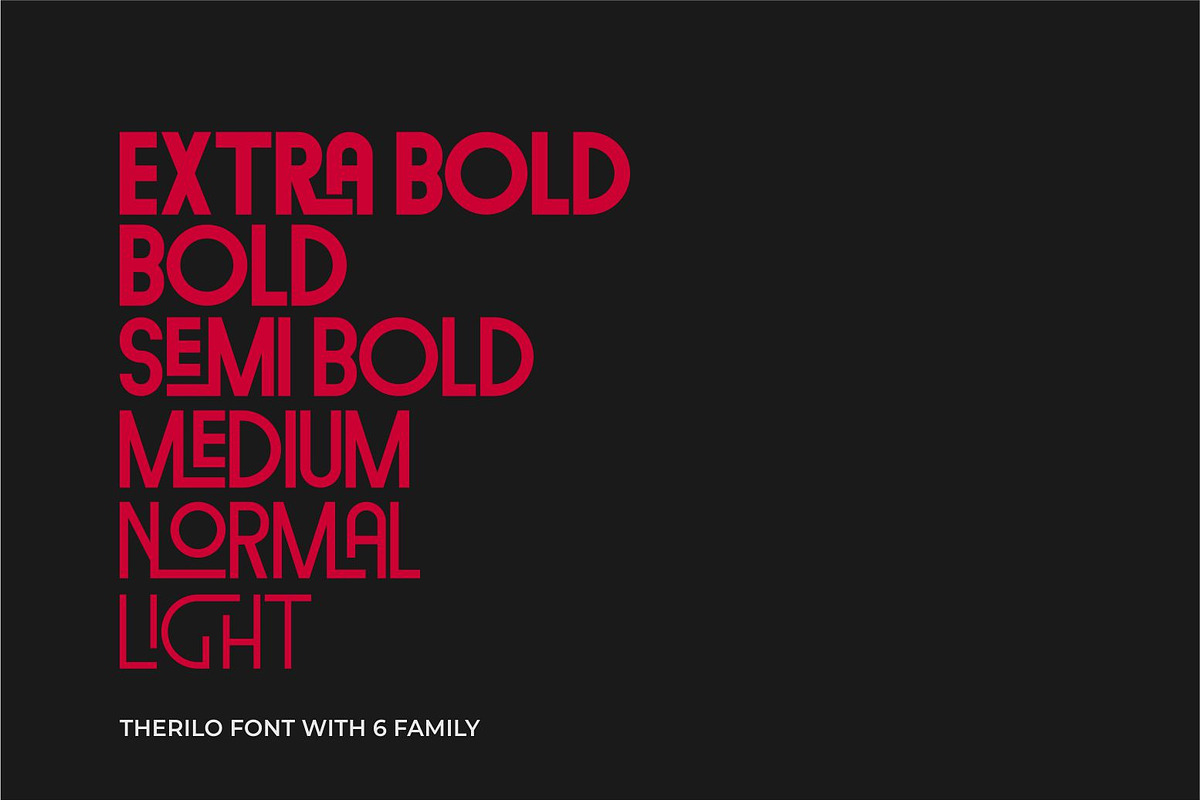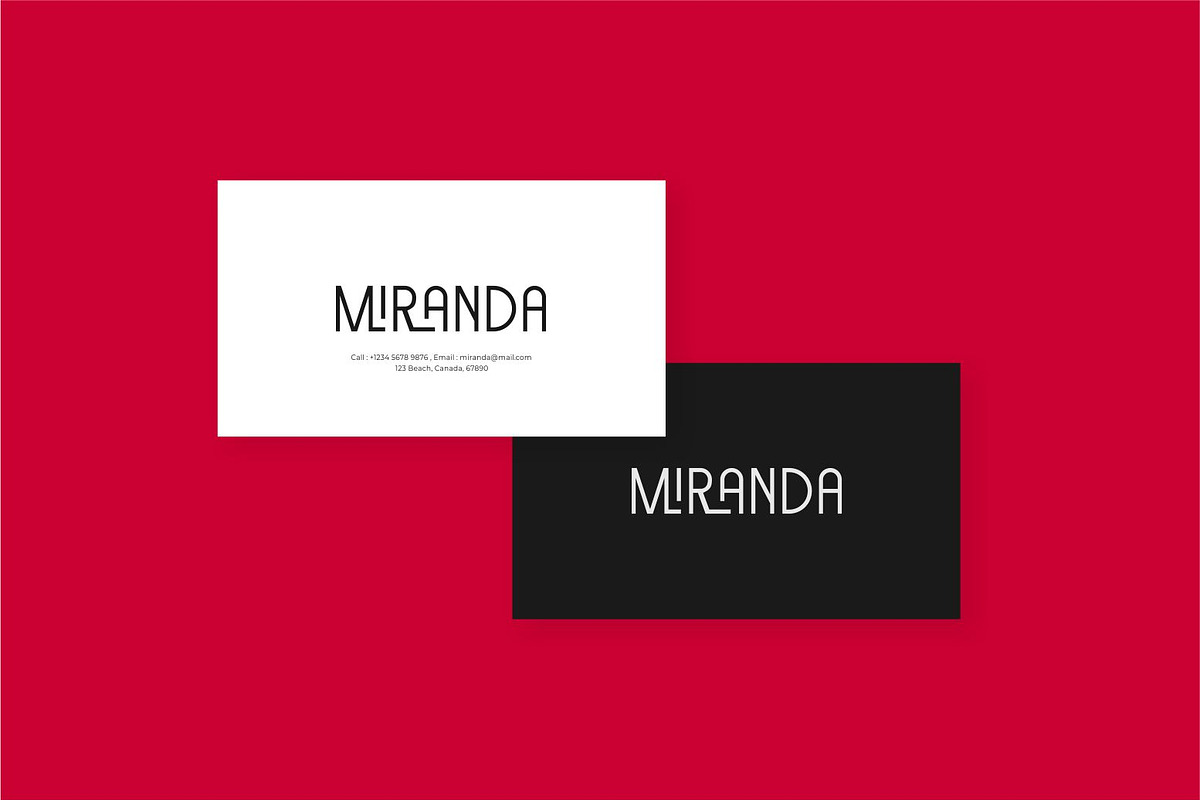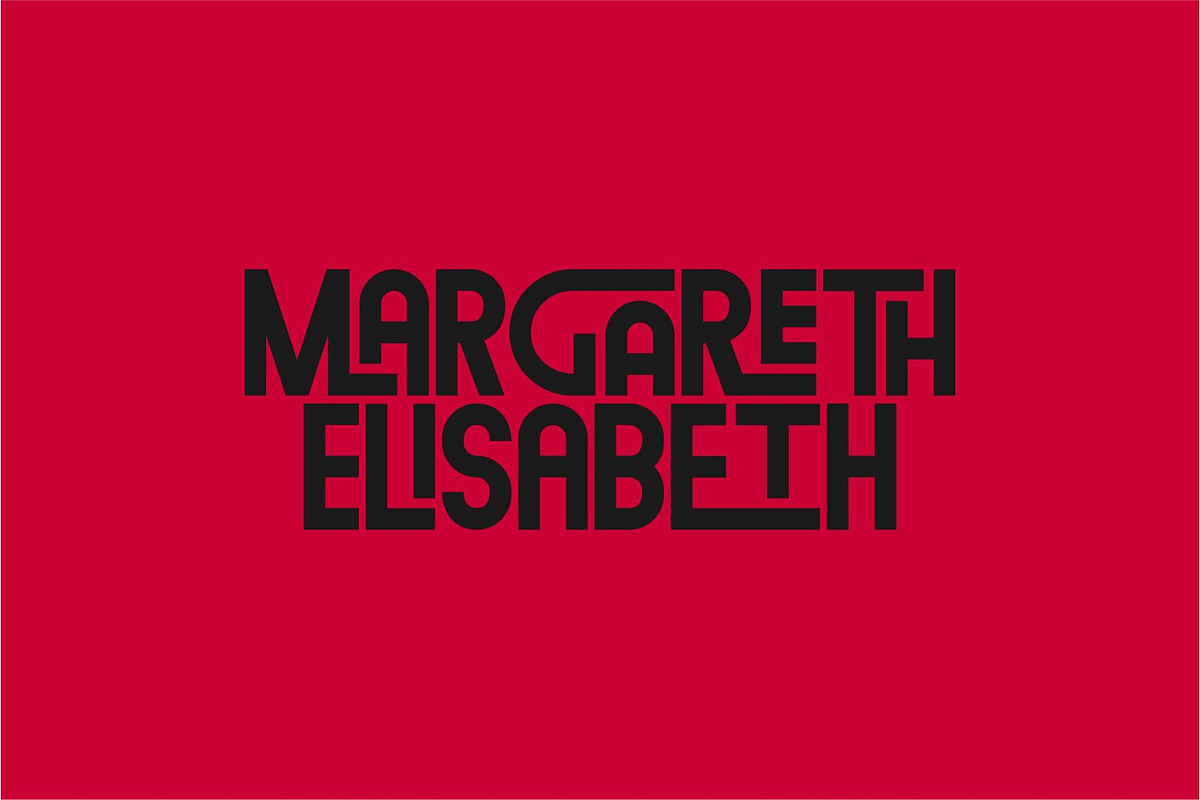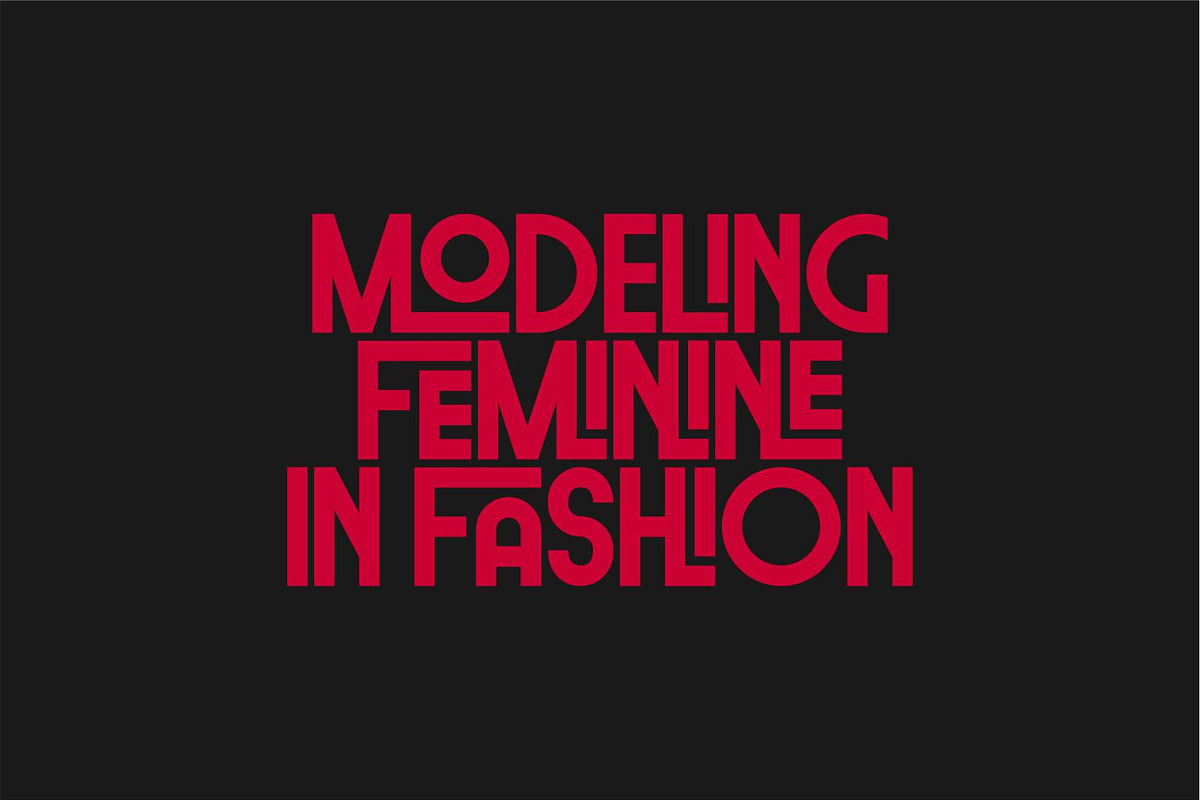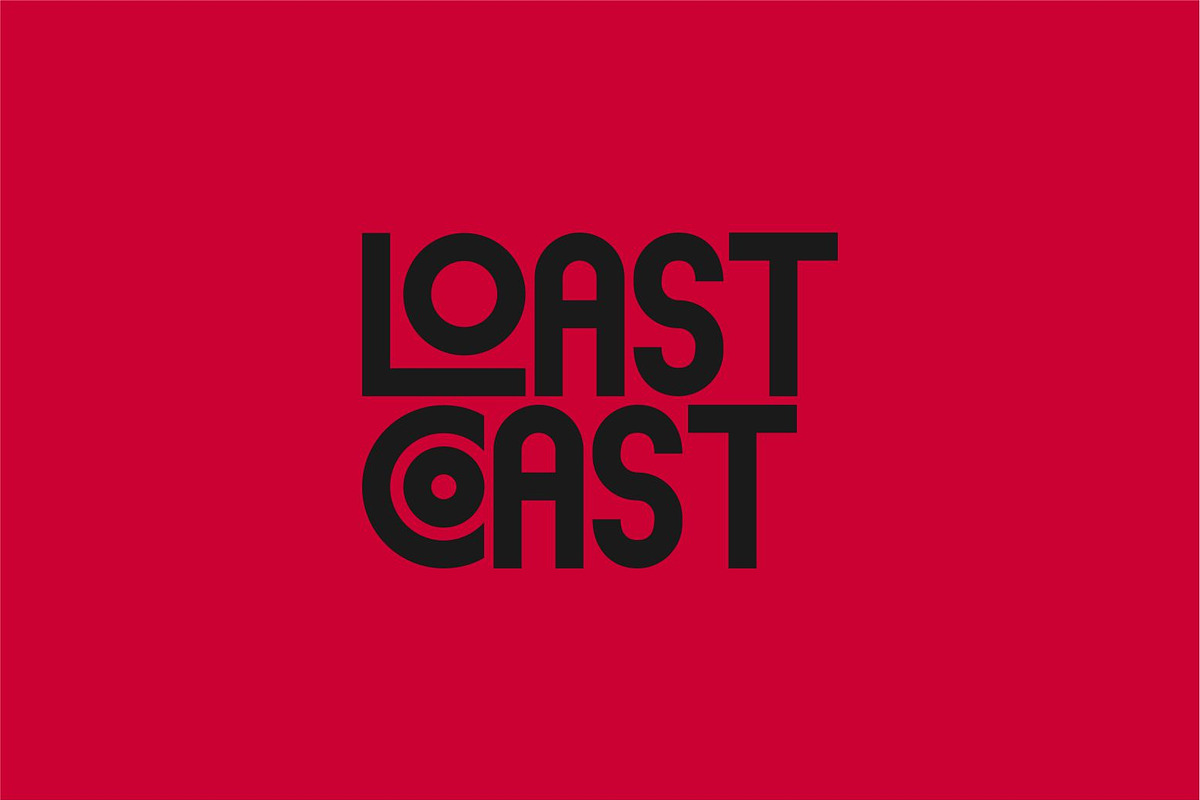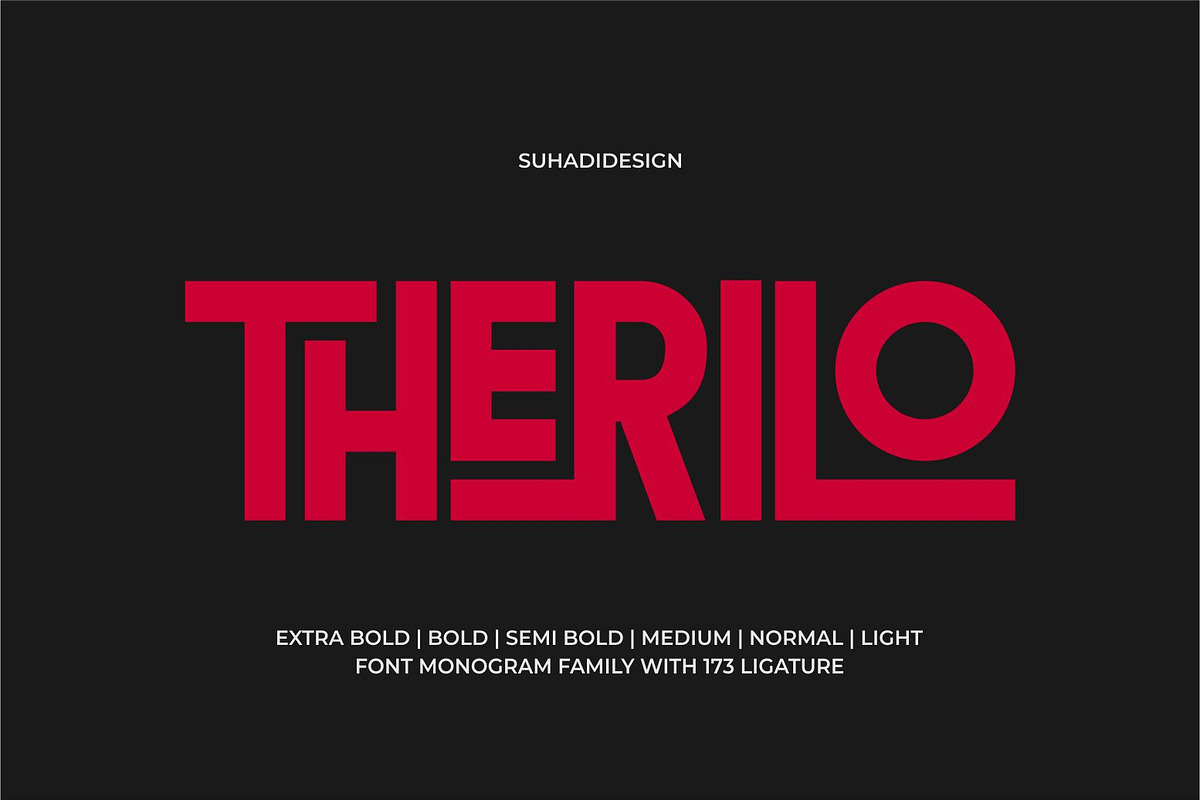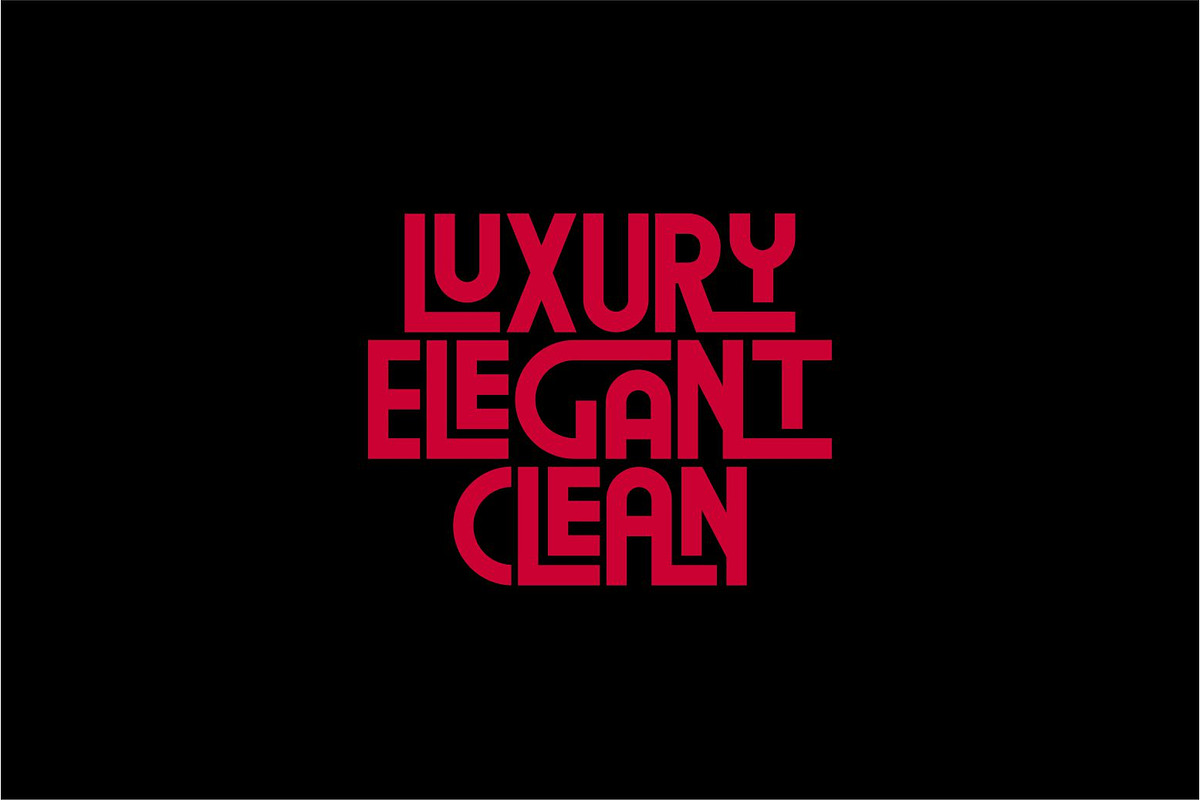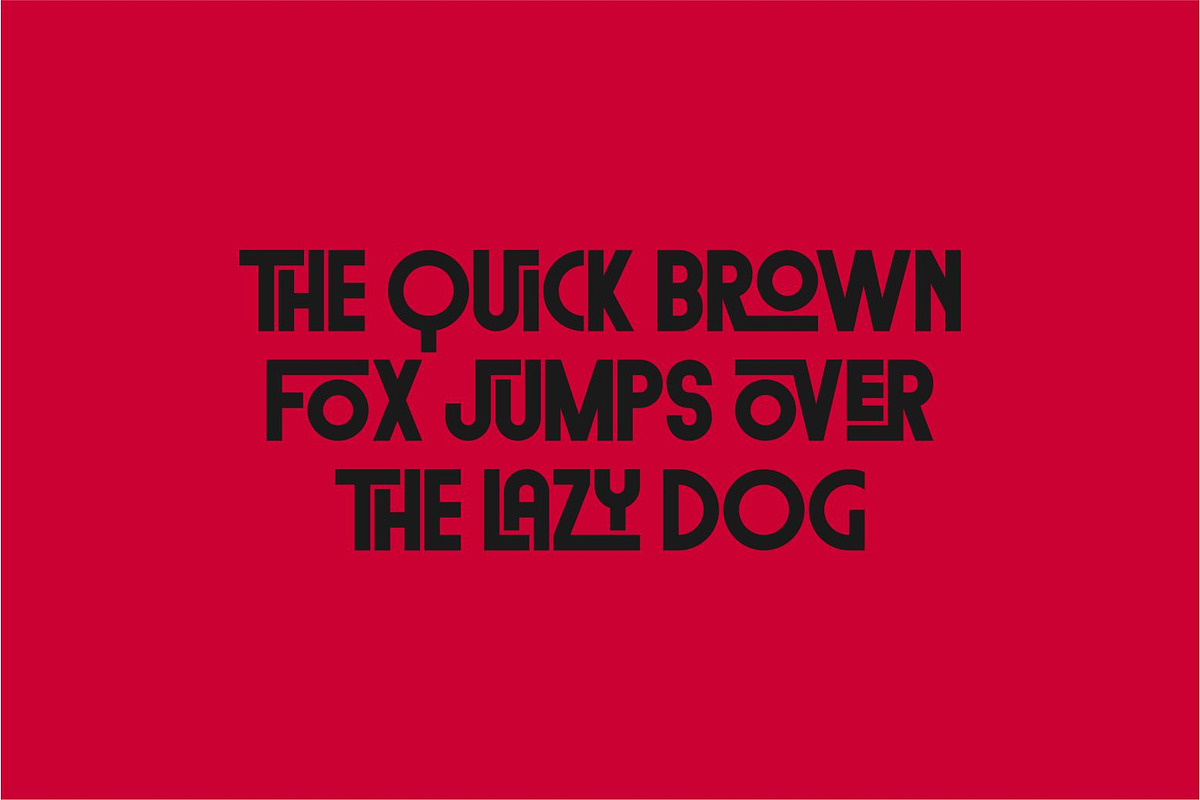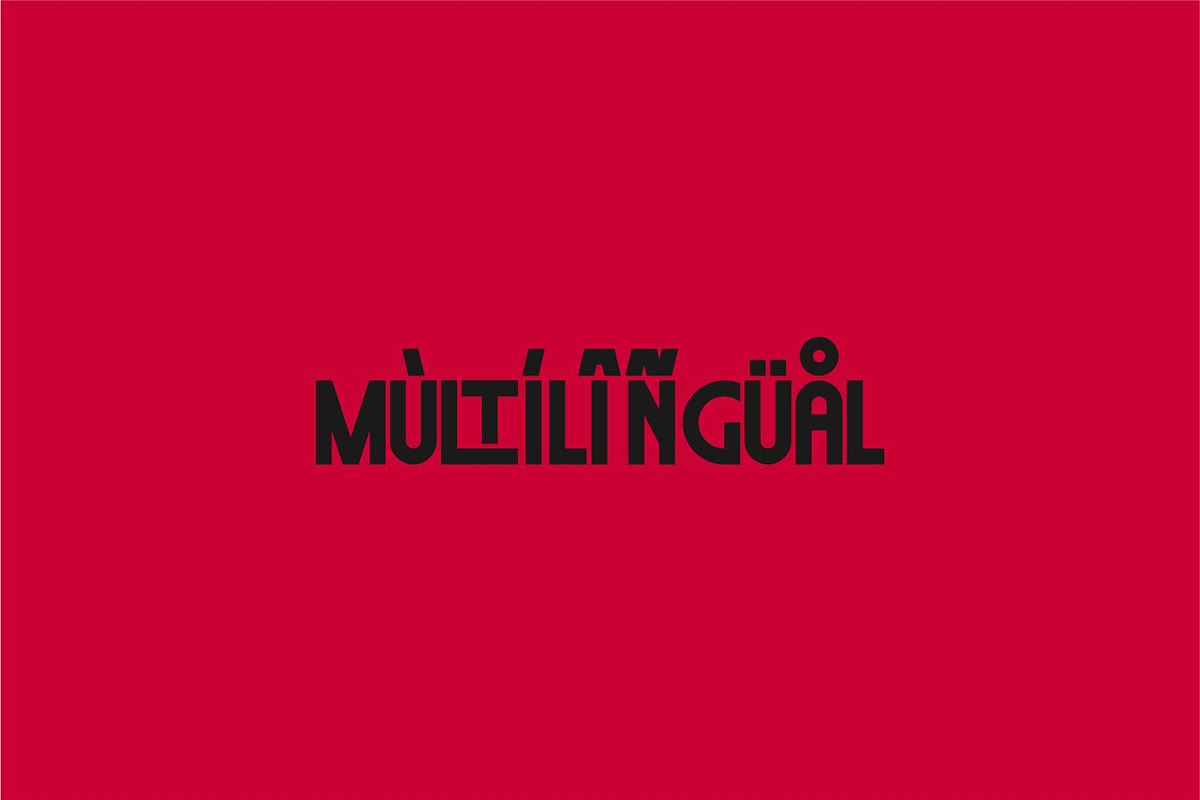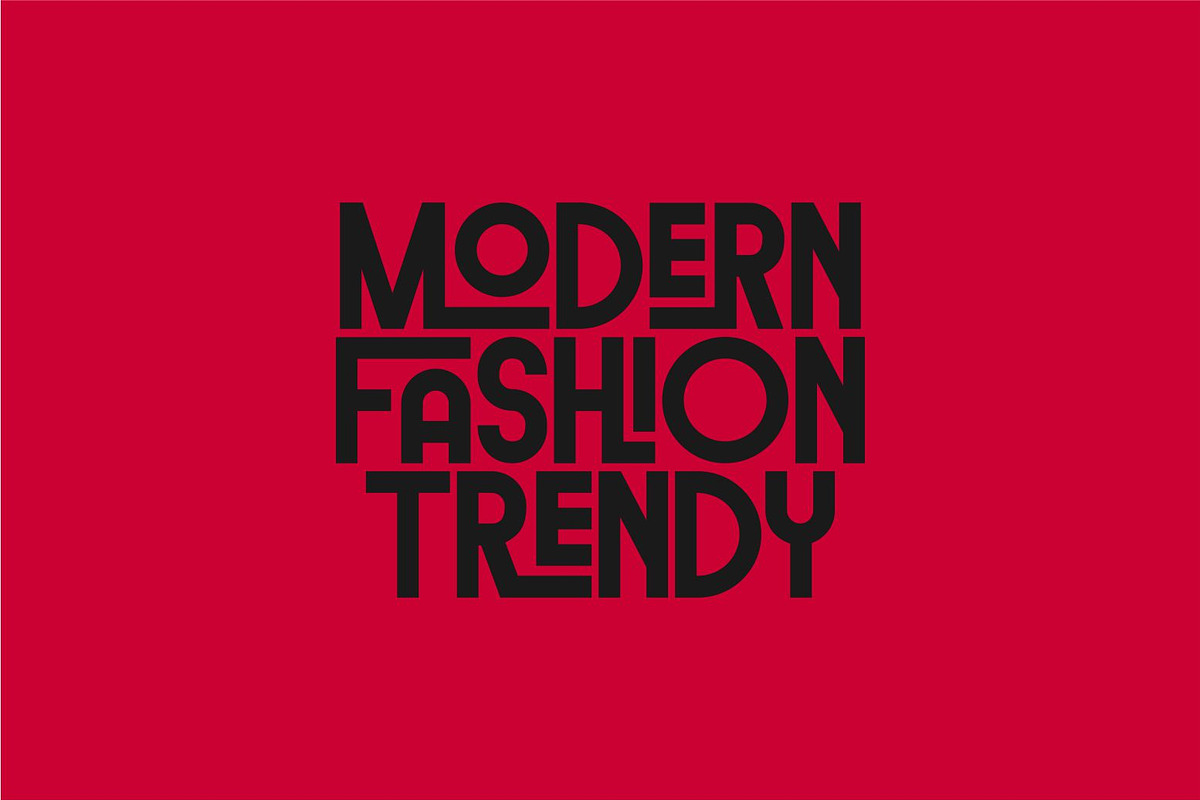
Therilo - Sans Serif Monogram Font
Hi Ladies and Gentlemen! In accordance with market demand, I created a minimalist sans serif font that is modern, elegant and cool, so I decided to create this sans serif font. Therilo font is a modern sans serif font with 173 ligatures, presented in a modern style with the hope of becoming a market favorite. We keep this font looking elegant, classy, modern, stylish, up-to-date and easy to use. Therilo Font is a great choice for logos, labels, fashion, posters, banner, bags, brands, fashion, brand names, brands, quotes and other projects. Therilo font is here to take your designs to the next level.
• All capital letters • 173 Ligatures • 6 Families • Multilingual support • Numbers and punctuation